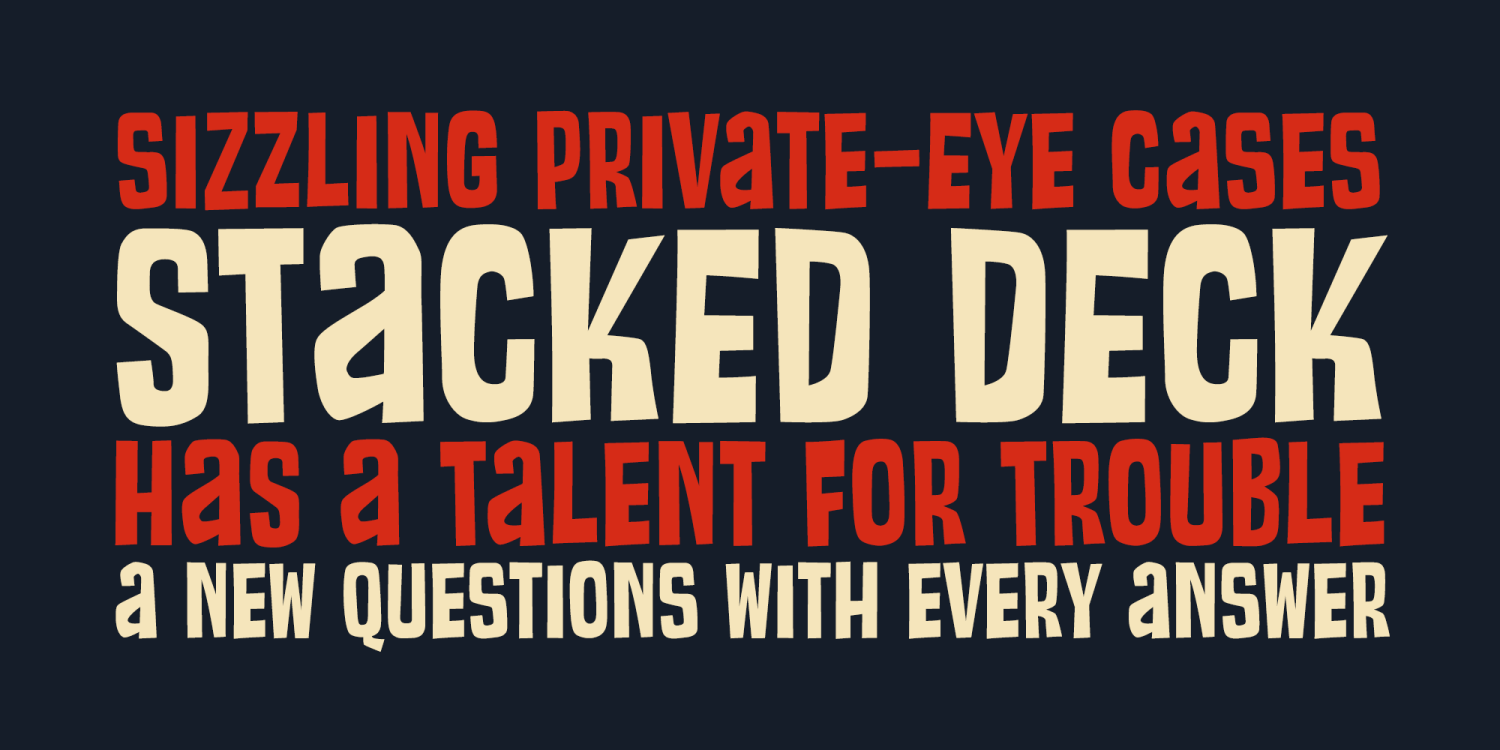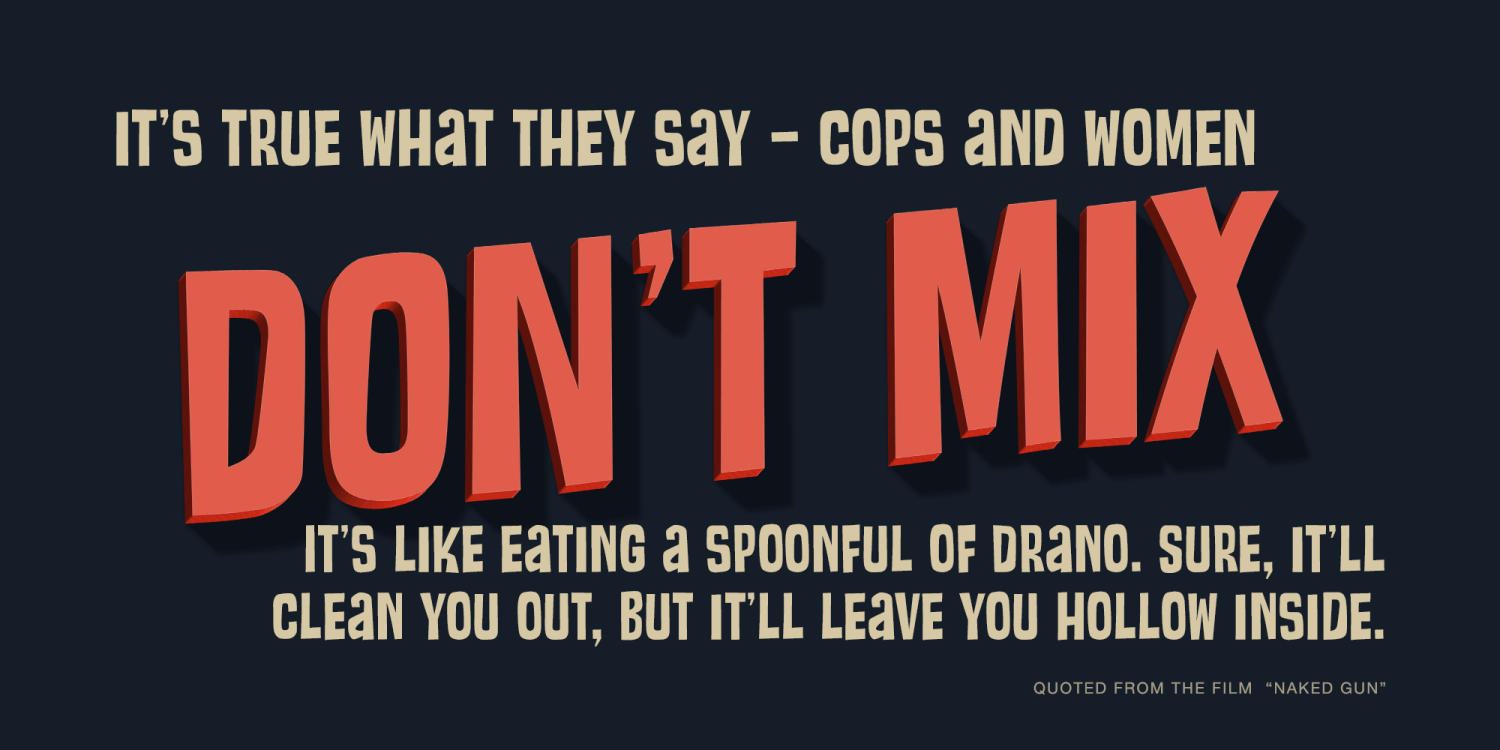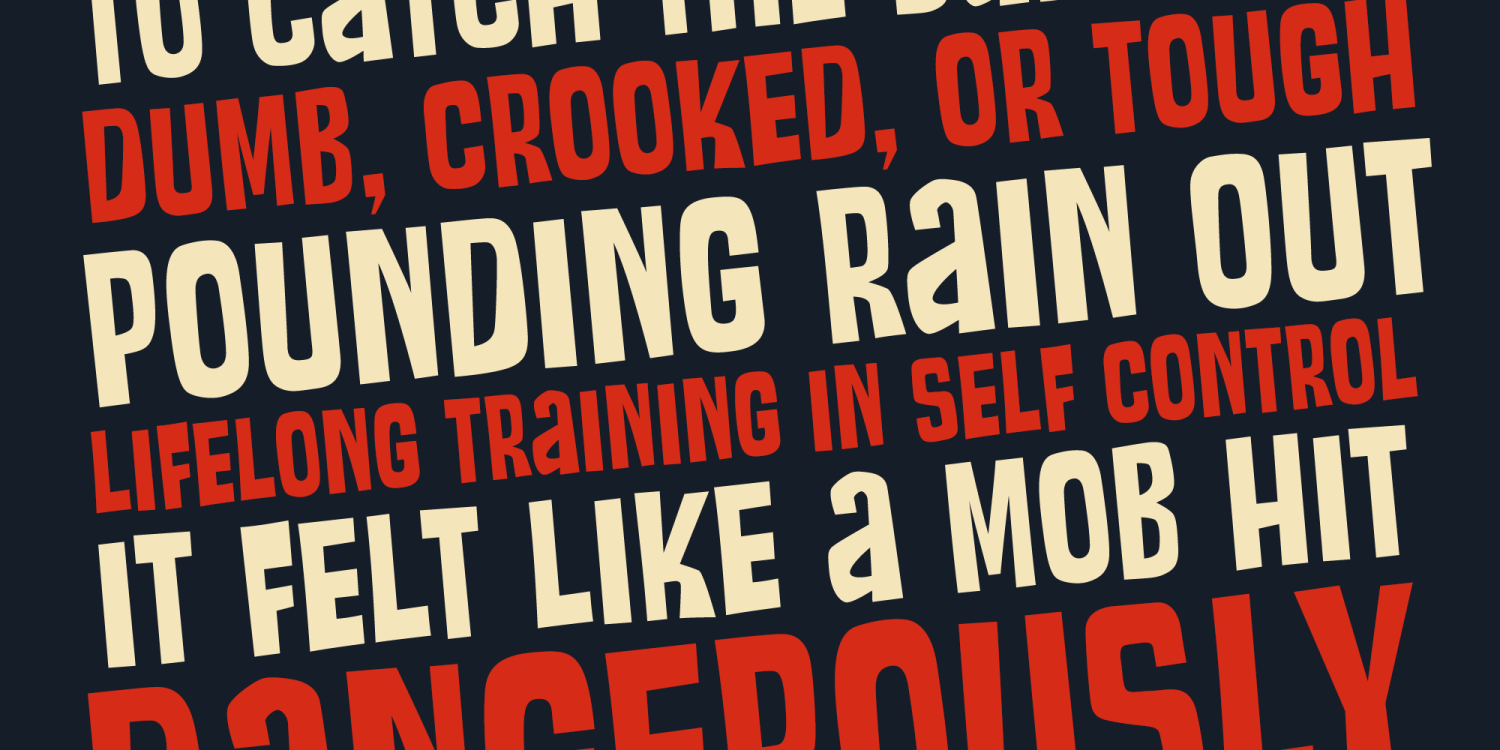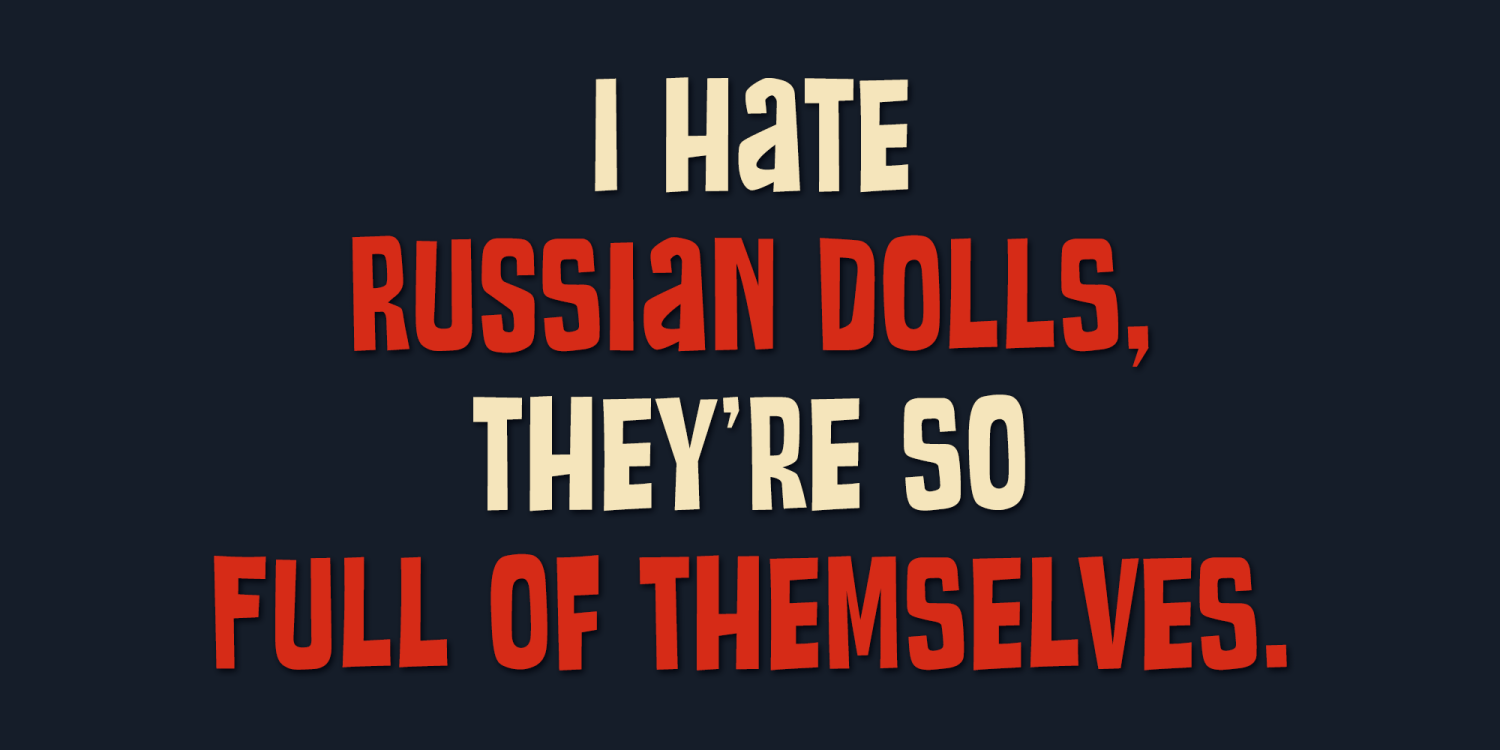
Stacked Deck PB
Font Family by Pink Broccoli
Stacked Deck is a retro typestyle inspired by an old private eye pulp paperback of the same name, and it expands on the title to dance on screen or in print. Let the cards fall in your favor with Stacked Deck in your playful typeface design collection. While this may look like an all capitals typeface, it contains a mix of capitals and alternate capitals meticulously kerned and cross kerned so you can mix them seamlessly.
Just have fun with it.